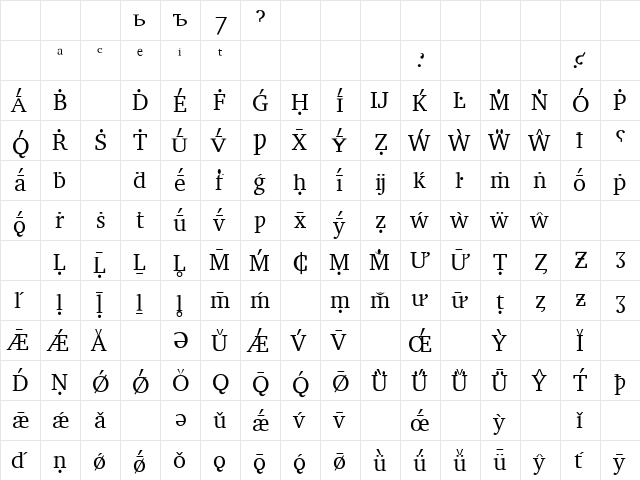
LeedsBit ExtraChars1 Normal
LeedsBit ExtraChars1 takes a measured approach to typography — its balanced proportions and neutral character make it a reliable workhorse for both digital and print work.